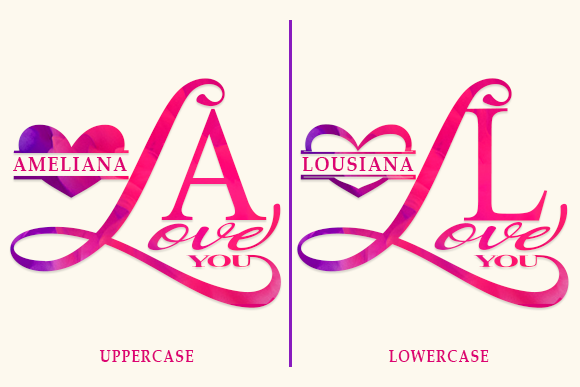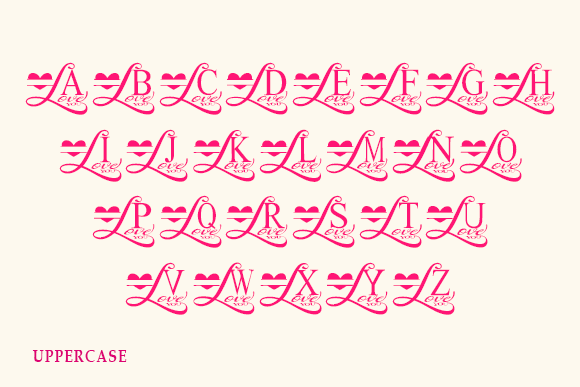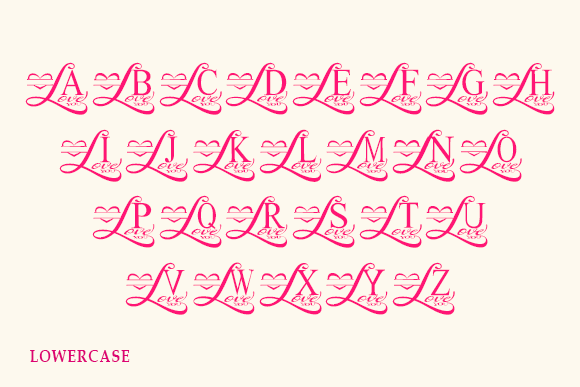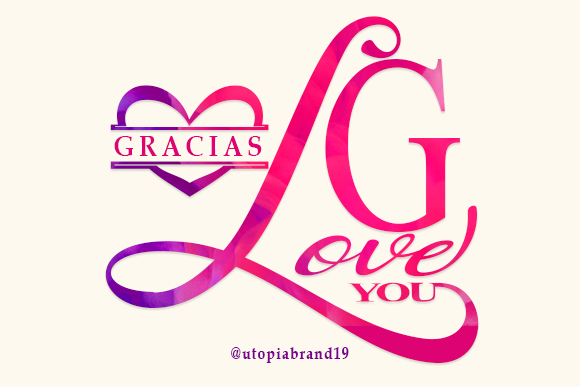
Introducing Berliana Monogram Font: The Sweetest Decorative Font for Your Creative Projects
Are you a designer, crafter, or DIY enthusiast looking for a font that can add a touch of sweetness and elegance to your creative projects? Look no further than Berliana Monogram Font! This beautiful decorative font features a lovely heart ornament that will make your designs stand out. In this article, we’ll explore the features and benefits of Berliana Monogram Font and show you how to use it to create stunning wedding invitations, stationery art, social media posts, and greeting cards.
What is Berliana Monogram Font?
Berliana Monogram Font is a unique and charming decorative font that is perfect for adding a personal touch to your designs. Its sweet and authentic feel makes it ideal for a variety of creative projects, from wedding invitations and stationery to social media posts and greeting cards. The font features a beautiful heart ornament that adds a touch of romance and whimsy to your designs.
Key Features of Berliana Monogram Font
- Sweet and Decorative: Berliana Monogram Font is a beautifully designed font that features a sweet and decorative style, perfect for adding a touch of elegance to your designs.
- Lovely Heart Ornament: The font features a lovely heart ornament that adds a touch of romance and whimsy to your designs.
- Authentic Feel: Berliana Monogram Font has an authentic feel that makes it perfect for creating traditional and vintage-inspired designs.
How to Use Berliana Monogram Font
Berliana Monogram Font is versatile and can be used for a variety of creative projects. Here are some ideas to get you started:
Wedding Invitations
Create beautiful and elegant wedding invitations with Berliana Monogram Font. The font’s sweet and romantic feel makes it perfect for wedding designs, and the heart ornament adds a touch of whimsy and charm.
Stationery Art
Use Berliana Monogram Font to create stunning stationery art, including notecards, journals, and planners. The font’s decorative style and authentic feel make it perfect for creating traditional and vintage-inspired designs.
Social Media Posts
Add a touch of elegance to your social media posts with Berliana Monogram Font. The font’s sweet and decorative style makes it perfect for creating eye-catching graphics and posts that will stand out on your followers’ feeds.
Greeting Cards
Create cute and charming greeting cards with Berliana Monogram Font. The font’s heart ornament and romantic feel make it perfect for creating Valentine’s Day, anniversary, and birthday cards.
Tips and Tricks for Using Berliana Monogram Font
- Experiment with Different Sizes: Berliana Monogram Font looks great in a variety of sizes, so don’t be afraid to experiment and find the perfect size for your design.
- Pair with Other Fonts: Berliana Monogram Font pairs well with other fonts, so try pairing it with a sans-serif font for a modern look or a script font for a more elegant feel.
- Add Graphics and Images: Add graphics and images to your design to make it more visually interesting and to help illustrate your message.
Berliana Monogram Font is a beautiful and versatile decorative font that is perfect for adding a touch of sweetness and elegance to your creative projects. With its lovely heart ornament and authentic feel, it’s ideal for creating stunning wedding invitations, stationery art, social media posts, and greeting cards. Whether you’re a designer, crafter, or DIY enthusiast, Berliana Monogram Font is a great addition to your font collection.